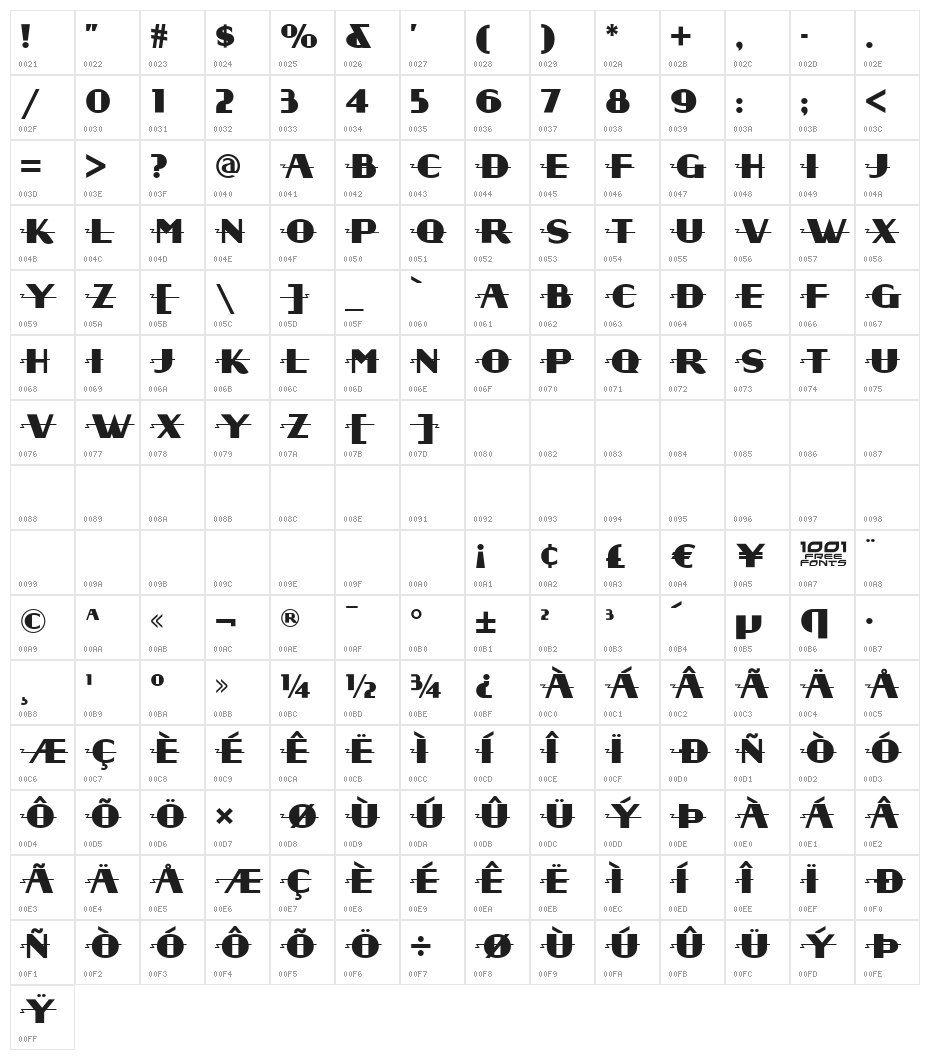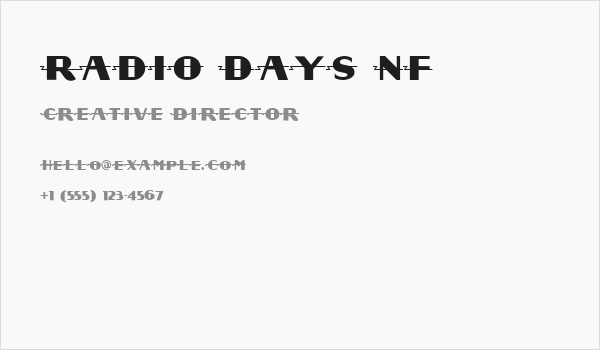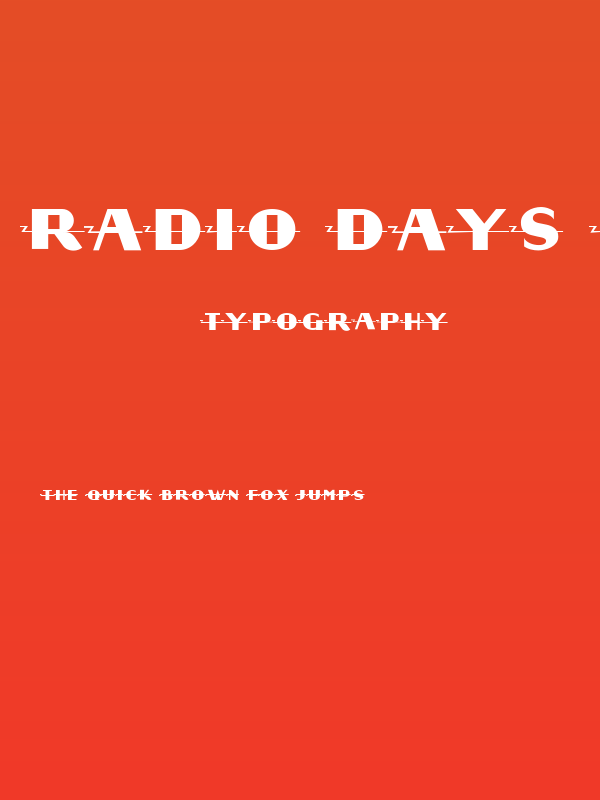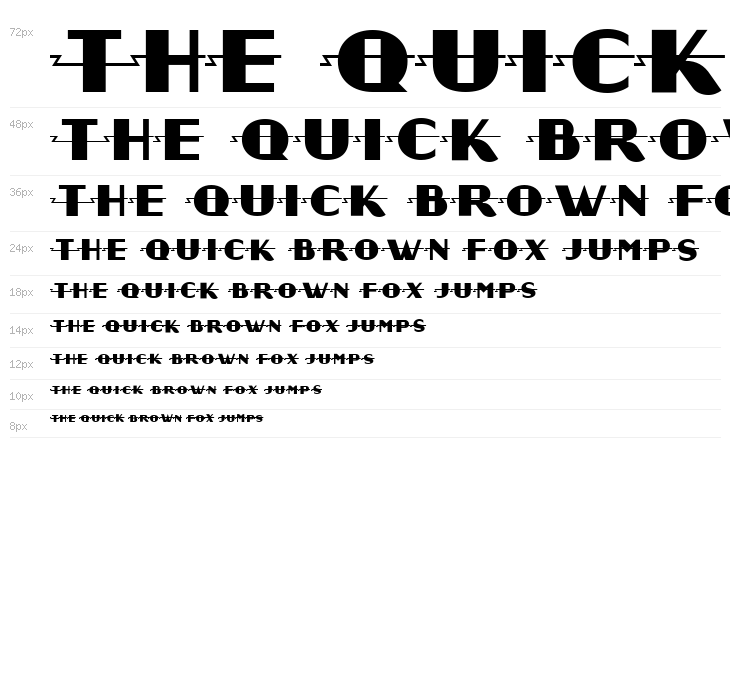
Radio Days NF Font
Radio Days NF Description
This font features a bold, geometric style with a distinct Art Deco influence. The characters are constructed with strong, straight lines and sharp angles, giving them a modern and sophisticated appearance. The uppercase letters are particularly striking, with a uniform height and width that creates a sense of balance and harmony. The numerals and special characters maintain this geometric consistency, making the font versatile for various design applications. The overall aesthetic is both retro and contemporary, making it suitable for projects that require a touch of elegance and style.
| Proposed Projects | Ideal for branding, posters, headlines, and any design project that requires a bold, stylish statement. |